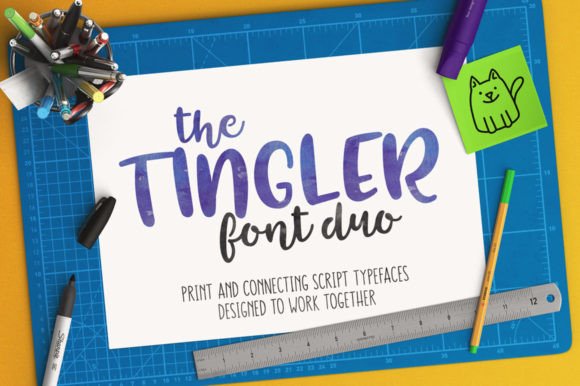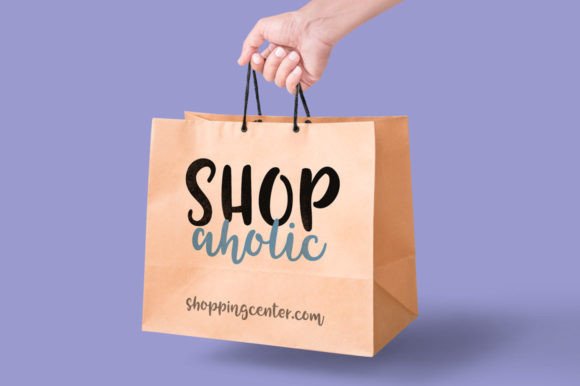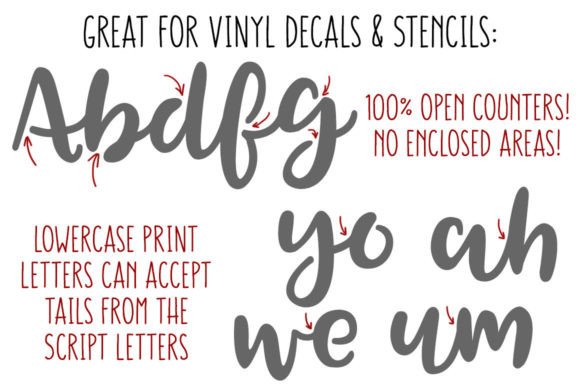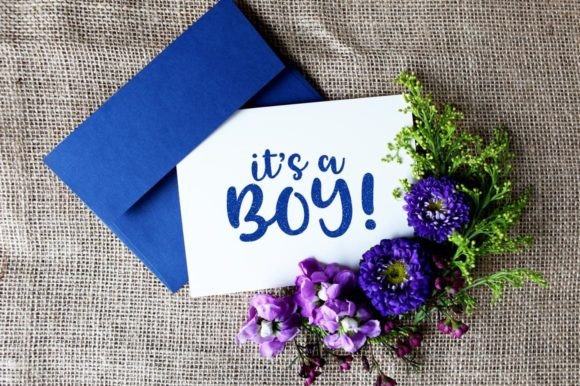
Tingler Duo Font
Introducing the Tingler Stencil Font Duo – a dynamic pairing of Tingler Script and Tingler Print, meticulously crafted to complement each other seamlessly. This duo offers a unique blend of handwritten script and printed typefaces, created side-by-side to ensure perfect harmony in your designs.
**Tingler Script:**
A connecting handwritten script typeface that exudes elegance and fluidity. Ideal for projects where a personal touch is desired, Tingler Script adds a graceful and dynamic quality to your designs.
**Tingler Print:**
A printed handwritten script typeface that complements Tingler Script perfectly. Crafted to work side-by-side, the lowercase letters in Tingler Print are strategically designed to accept the connecting tails from Tingler Script, resulting in a harmonious and cohesive look.
The Tingler duo is thoughtfully tailored for crafters. Notably, both typefaces feature no closed counters, making them particularly well-suited for stencil applications and electronic cutting machines. This versatility allows for easy integration into a variety of creative projects.
**Tingler Stencil Font Duo Package Includes:**
– Almost 700 glyphs across both fonts, meticulously designed to work in tandem.
– No closed counters, ensuring ease of use for stencils and vinyl applications.
– Over 200 accented characters in each font, providing extensive language support for languages such as English, French, Spanish, German, Polish, Romanian, Portuguese, Swedish, Finnish, Norwegian, Danish, Esperanto, Czech, Dutch, Welsh, Filipino, Turkish, and more.
– Staggered double-letter ligatures for a hand-drawn aesthetic, enhancing the overall visual appeal.
The Tingler Stencil Font Duo invites you to explore the interplay of script and print, offering a versatile and engaging solution for various design projects. With its extensive glyph set, language support, and crafted design, Tingler is a valuable addition to the toolkit of designers, crafters, and creators seeking a distinctive and harmonious typographic duo.